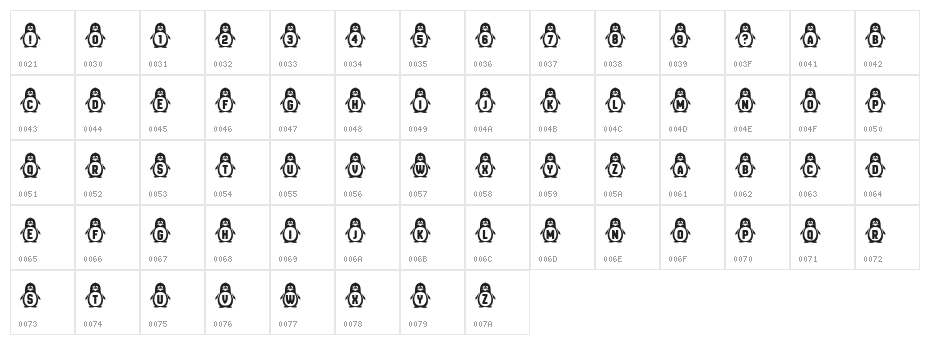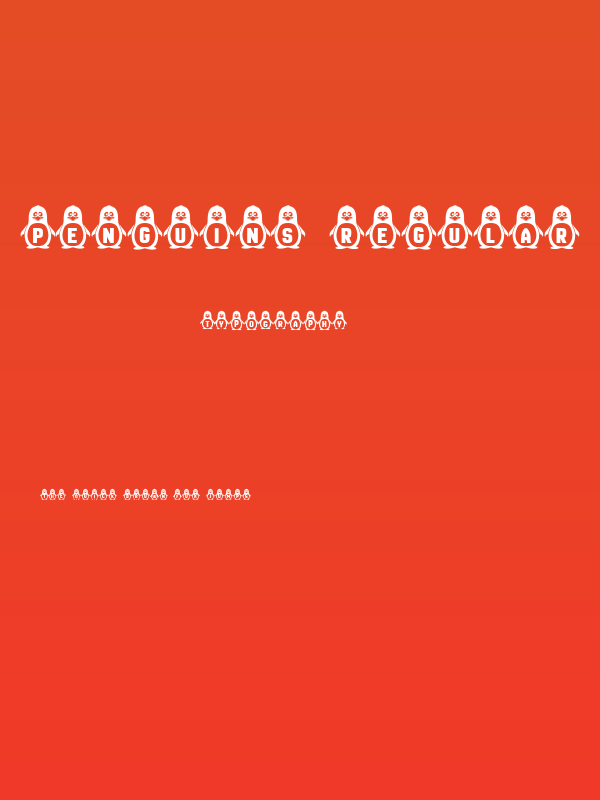
Penguins Regular Font
Penguins Regular Description
This playful and whimsical font features each character enclosed within a cute penguin silhouette, creating a unique and eye-catching design. The letters and numbers are bold and clear, making them easily readable despite the decorative nature of the font. The penguins add a fun and friendly touch, perfect for projects that require a lighthearted and engaging aesthetic. The font maintains consistency in style across uppercase, lowercase, and numeric characters, ensuring a cohesive look.
| Proposed Projects | Ideal for children's books, educational materials, playful branding, and themed party invitations. |